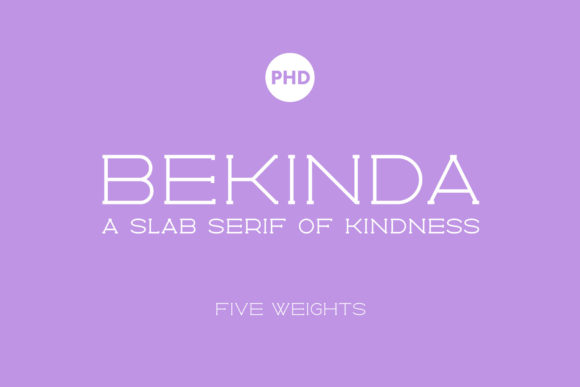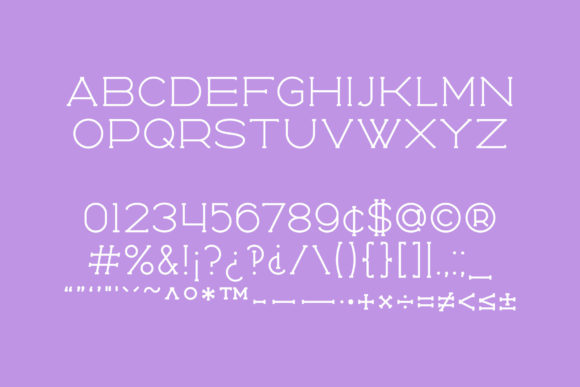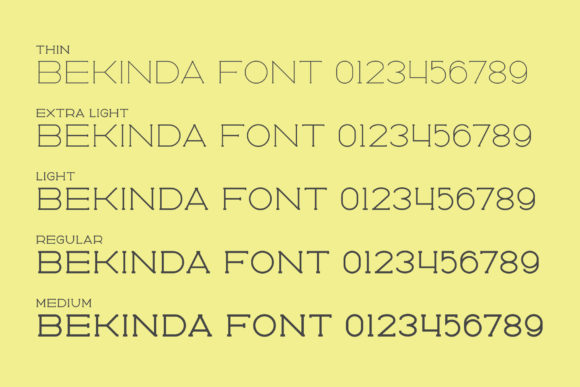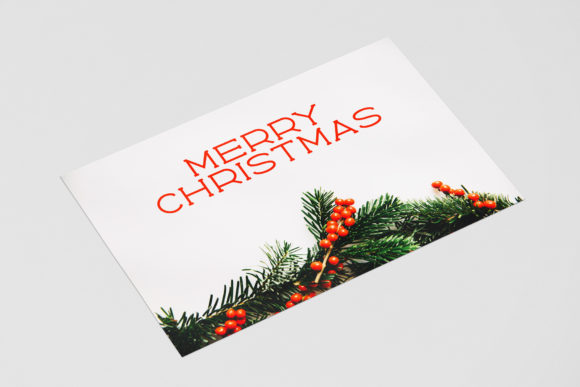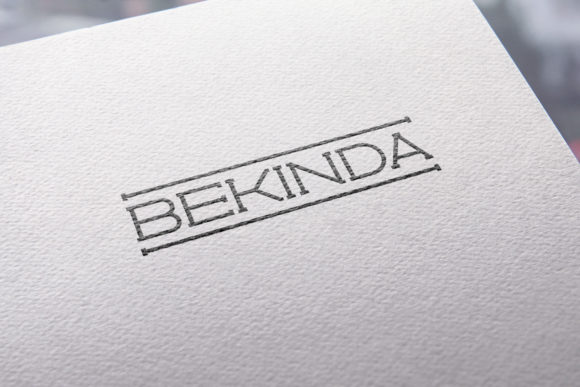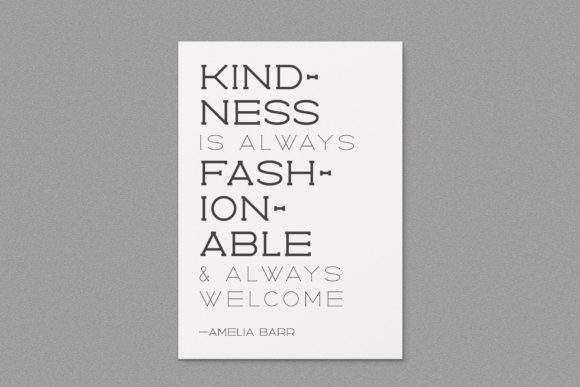
Bekinda
Bekinda: A Cute and Vintage Styled Slab Serif Font
Bekinda is a cute and vintage styled slab serif font. Add it confidently to your projects, and you’ll love the results. This charming typeface brings a touch of nostalgia and whimsy to any design.
Key Features of Bekinda
• Cute Design: Offers a charming and playful look suitable for various applications.
• Vintage Style: Brings a nostalgic feel to designs, perfect for retro-inspired projects.
• Slab Serif Structure: Features distinctive serifs that add character and readability.
• Versatile Application: Ideal for both print and digital media projects.
Ideal Uses for Bekinda
Bekinda’s unique characteristics make it particularly well-suited for:
When incorporating Bekinda into your designs, consider these tips:
• Use for headlines or short blocks of text to showcase its cute and vintage style.
• Utilize its charming appearance to create designs that evoke nostalgia and warmth.
Bekinda is an excellent choice for designers looking to add a cute and vintage-styled slab serif font to their typographic toolkit. Its ability to bring charm and nostalgia to various design projects makes it stand out in the world of typography. Whether you’re working on retro-inspired branding, creating invitations, or developing content that requires a touch of whimsy, Bekinda offers the perfect blend of style and personality.
Furthermore, Bekinda’s unique design allows it to shine in various contexts. From children’s book covers to vintage-themed websites, this font can elevate your projects with its distinctive style. Its cute yet readable appearance works particularly well in designs that aim to evoke feelings of warmth and nostalgia.
In conclusion, Bekinda is a font that truly captures the essence of vintage charm in modern typography. Its ability to work well in both playful projects and more sophisticated layouts showcases its versatility. For those looking to add a touch of retro charm to their work, Bekinda can enhance themed creations with its distinctive style. It’s the perfect choice for designers seeking to make a cute, stylish impact across a wide range of creative projects.